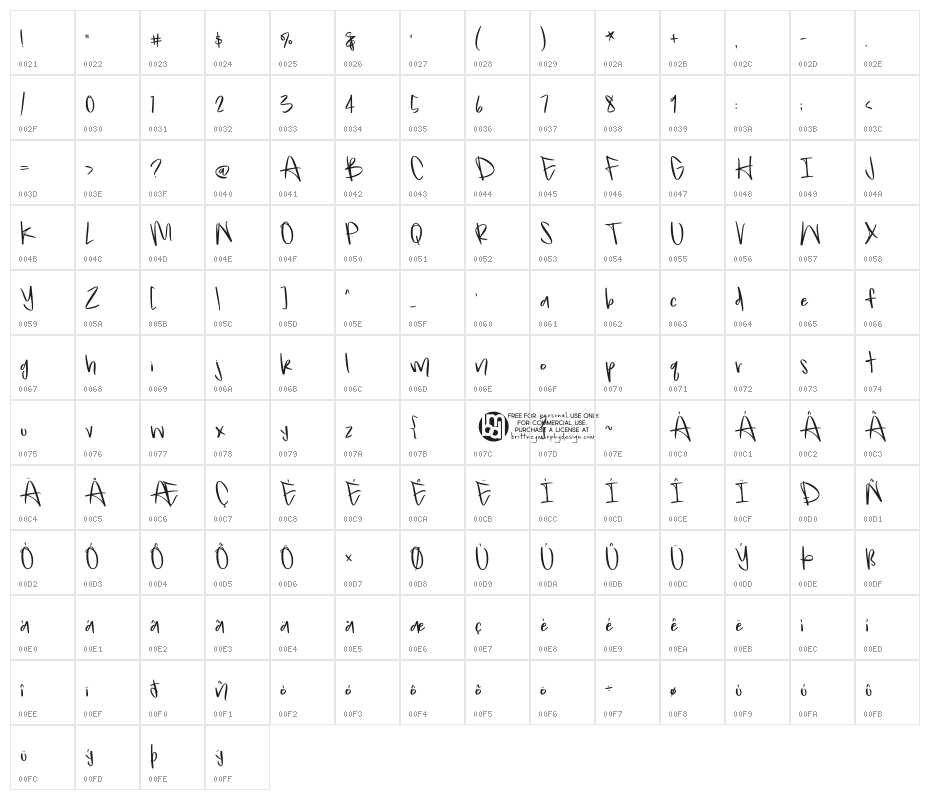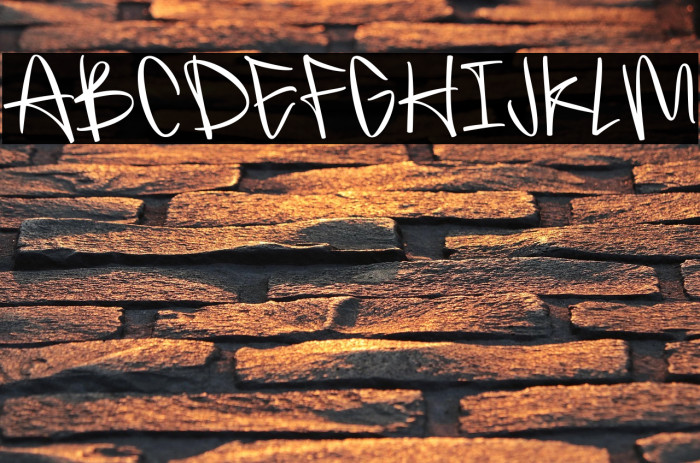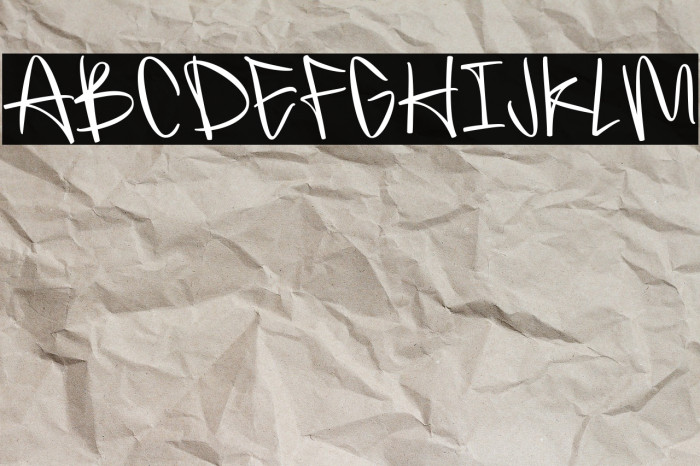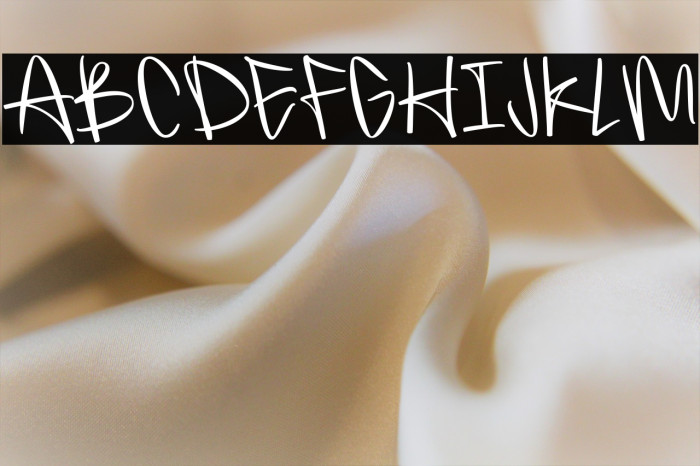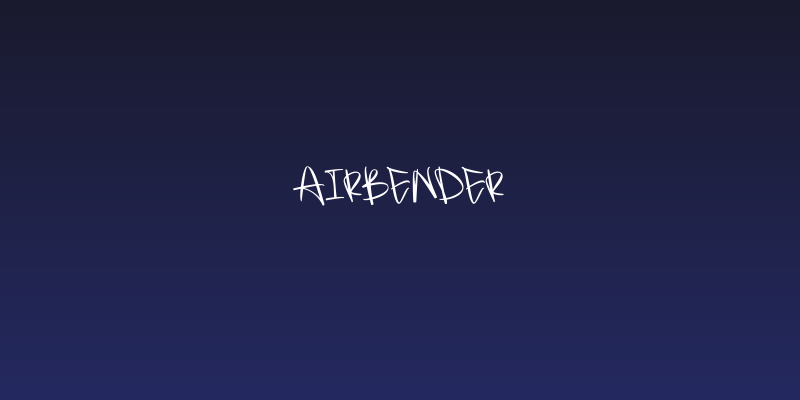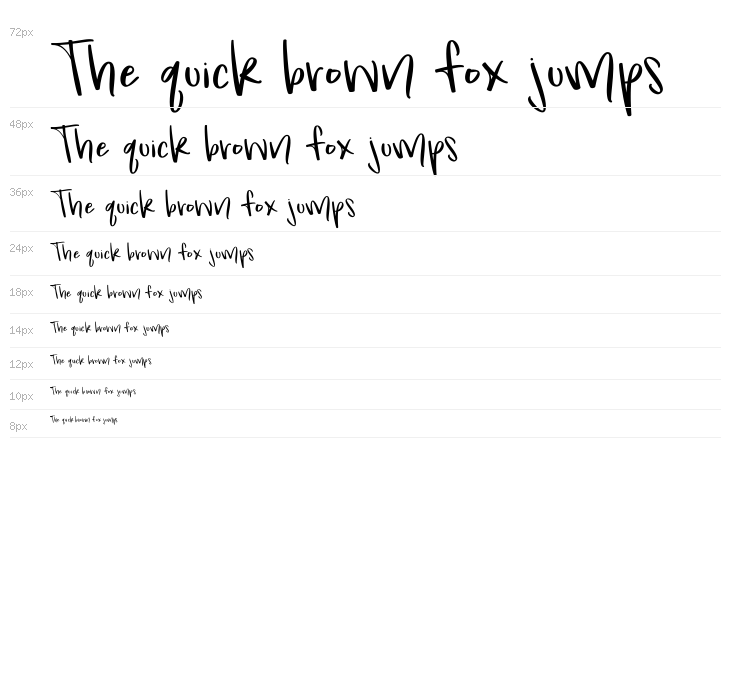
Airbender Font
Airbender Description
This font features a playful and casual handwritten style, characterized by its fluid and dynamic strokes. The uppercase letters are bold and slightly irregular, giving a sense of spontaneity and energy. The lowercase letters maintain a consistent flow, with some letters extending below the baseline, adding to the font's informal charm. Numbers are clear and legible, matching the overall aesthetic. Special characters are creatively designed, maintaining the font's lively and approachable feel. This font is perfect for projects that require a personal touch or a relaxed, friendly vibe.
| Overall Style | Casual |
| Use Case | Logos, Headlines, Informal Text |
| Proposed Projects | Ideal for greeting cards, personal branding, social media graphics, and informal invitations. |